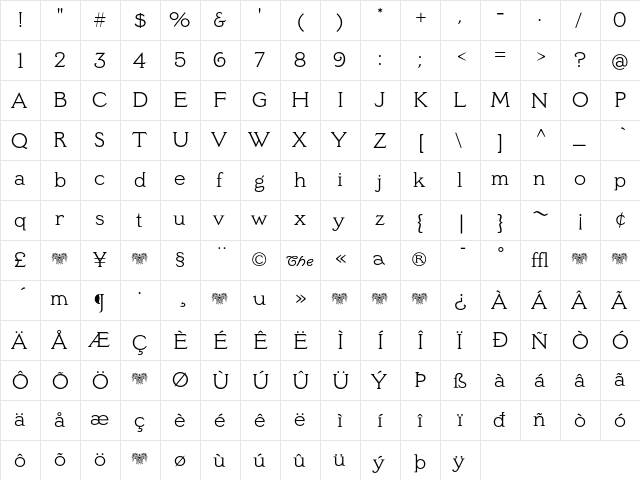
MeyerTwo Regular
Design Context for MeyerTwo Typeface
MeyerTwo offers clean, dependable letterforms without strong stylistic allegiance, making it a practical choice for designers who need flexibility.
Pro Tip: Pair MeyerTwo with a font of contrasting weight or personality to build a more expressive typographic hierarchy.